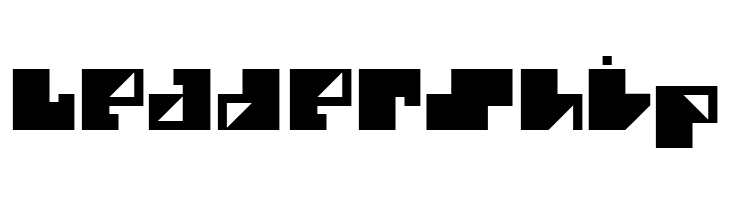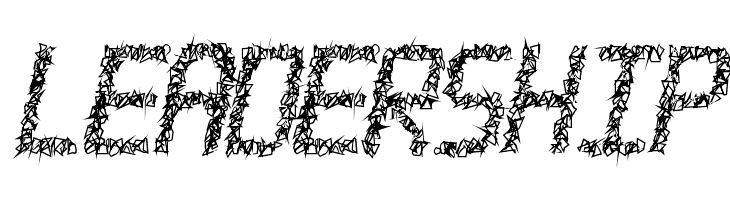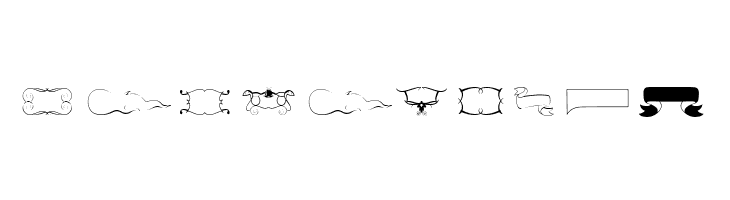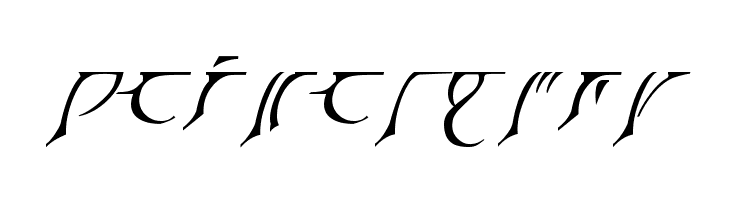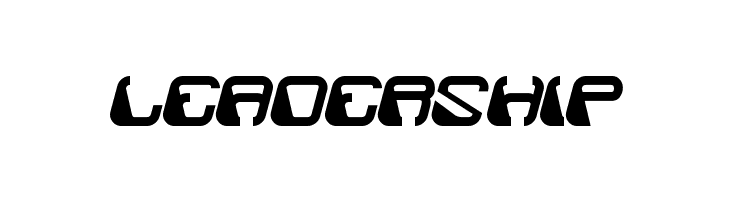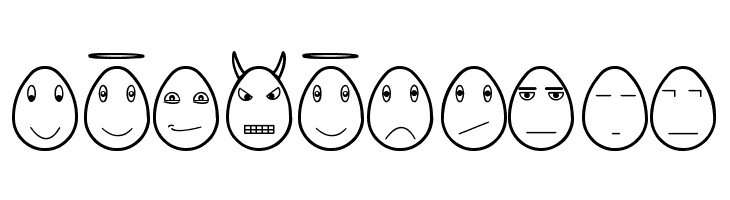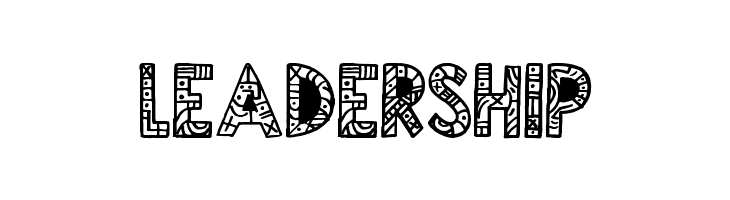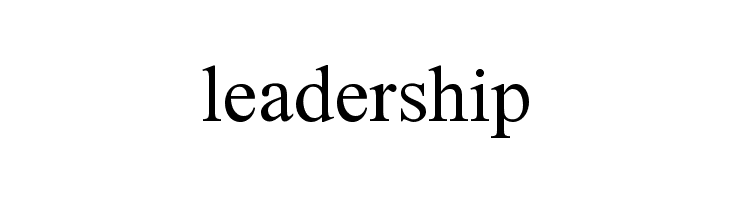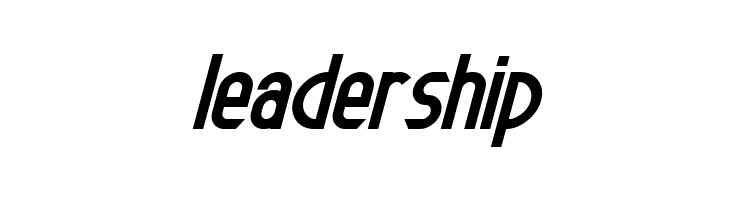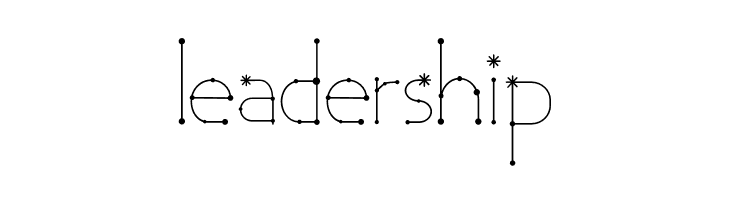
• Effervescent Superbeings
A bold, geometric font with a modern and edgy design.
• eggfaces tfb
A playful font with egg-shaped faces displaying various expressions.
• Eggs For 3 Yrs
• Egregio Script_demo
An elegant script font with flowing, ornate swashes and high contrast strokes.
• Egyptian Nights
A bold, decorative font with intricate patterns and geometric shapes.
• EightiesLocker
A bold, textured font with a distressed, 1980s-inspired style.
• EightiesShades
A bold, retro font with a unique striped pattern, ideal for vintage-themed projects.
• El alambre tfb
A bold, barbed wire-inspired font with intricate, angular lines.
• El Pececito
A bold, geometric font with angular shapes and a modern, edgy style.
• El Perro Y El Gato Words Regular
A bold, modern sans-serif font with clean, geometric lines.
• Elaaha
A classic serif font with elegant strokes and balanced proportions.
• Eladrin
A calligraphic font with sharp, angular strokes and elegant curves, evoking a fantasy or ancient script style.
• Elara
• Elara Bold
• Elara Italic
• ElectricalNeue
A bold, distressed font with a cracked texture for an edgy look.
• ElectricalStorm
A bold, distressed font with a grunge texture for an edgy appearance.
• ElectricNight
A bold, distressed font with a textured, grunge-inspired style.